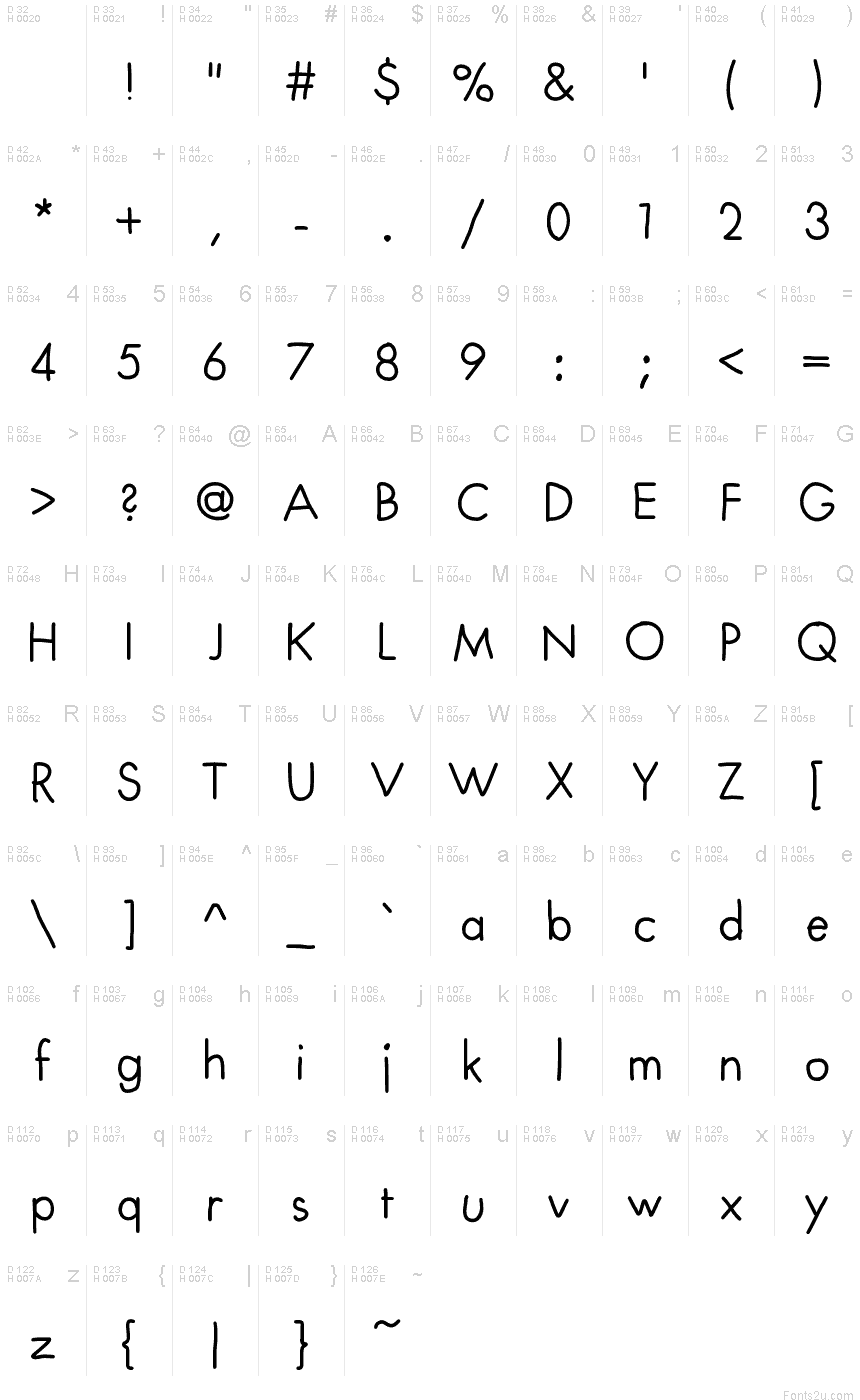
FuturaHandwritten
Futura Handwritten follows the BASIC shape structure of one of my personal favorite fonts, Futura Medium, but in a fun looking, handwritten style. Great for comics and other cartoons. I actually use this font for a webcomic that I created(www.pixelfailure.com), if you want to see it in action. :D